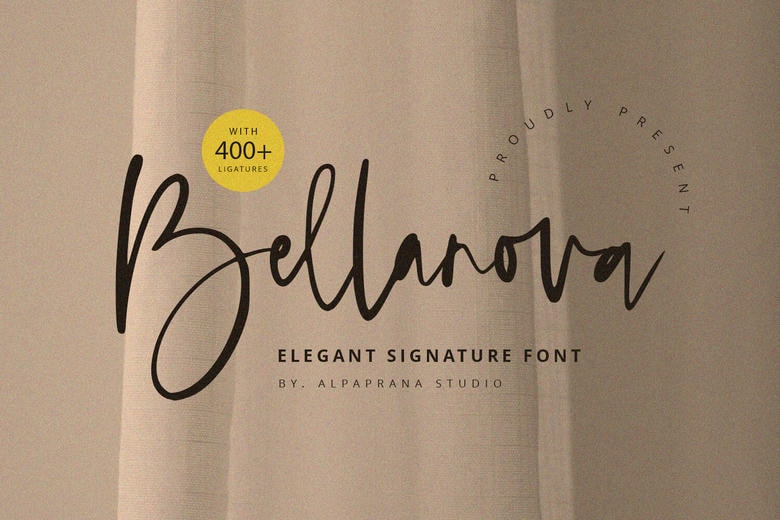
Bellanova Font
Bellanova is a stylish script font that can be considered elegant and modern. It has a contemporary look, graceful strokes, flowing curves, and well-designed letterforms, all of which bring beauty of hand-drawn calligraphy.
It is perfect in logos, invitations, packaging and social media graphics giving a superb and elegant look to any design. This font provides flexibility and appeal, as well as being easy to use, and highly appealing.
Bellanova Handwritten Script Font